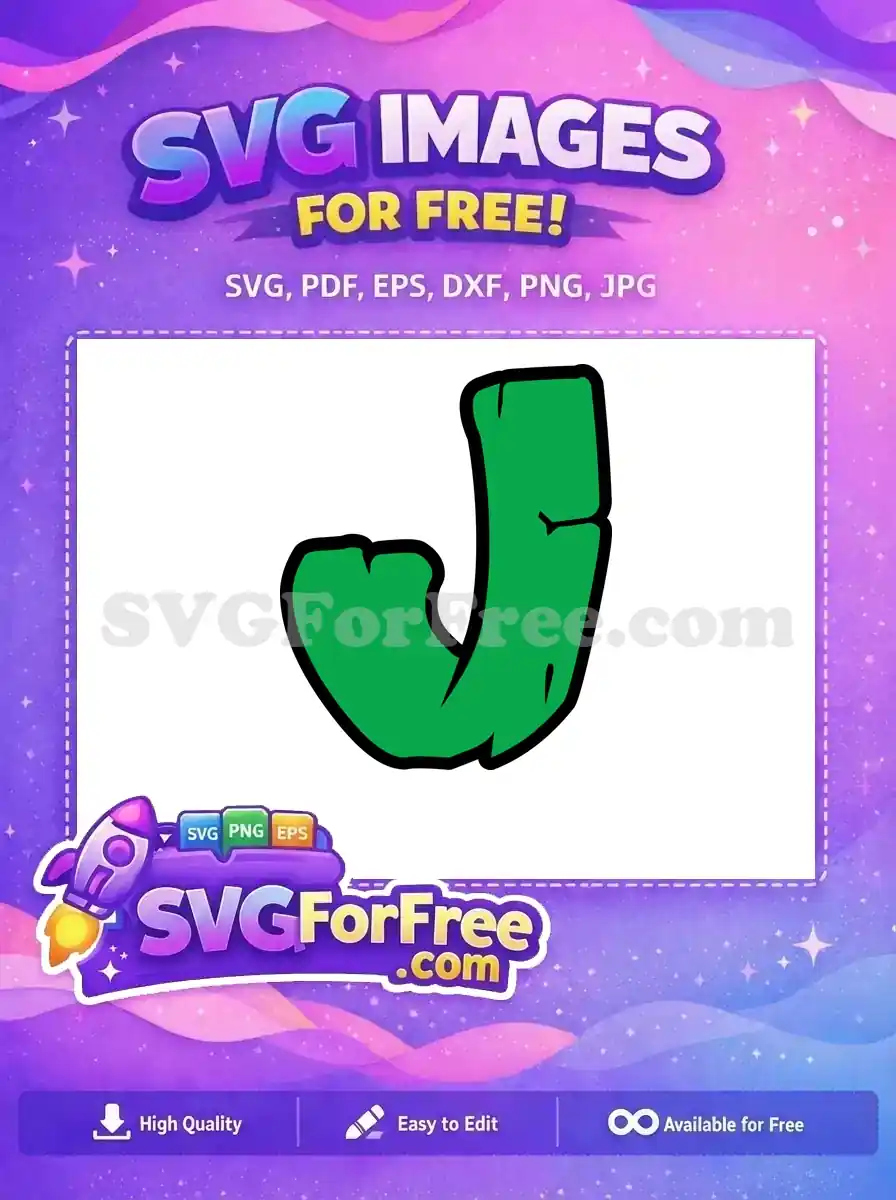
Free Green Font Letter J Free Graffiti Style Free SVG – Instant Download
A capital ‘J’ with a cracked, stone-like texture in green and black. A unique, free vector with a rough feel.
Free Green Font Letter J Free Graffiti Style Free SVG